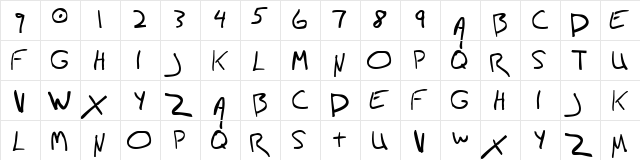
Jon Regular Font Preview
Jon Regular
Jon Regular Font Details
Design Context for Jon Typeface
Jon is a composed and adaptable typeface that performs quietly and consistently across a wide range of design contexts.